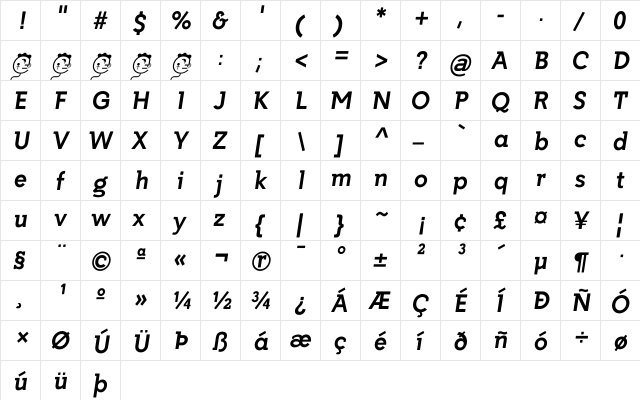
Getho Bold Italic
| Foundry | deFharo |
| Designer | Fernando Haro |
Design Context for Getho Typeface
Getho offers clean, dependable letterforms without strong stylistic allegiance, making it a practical choice for designers who need flexibility. The slanted form adds forward momentum and visual energy. Its bold stroke weight gives it real presence on the page.